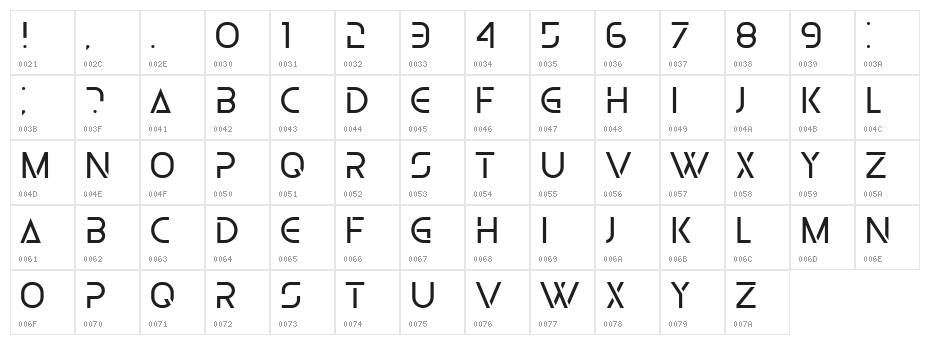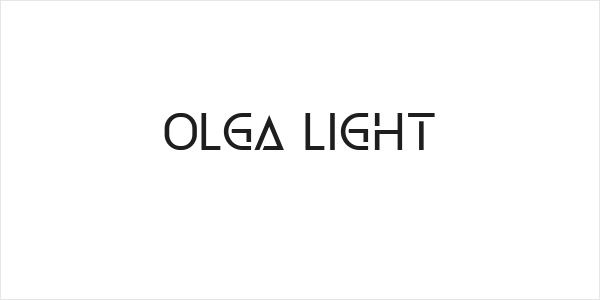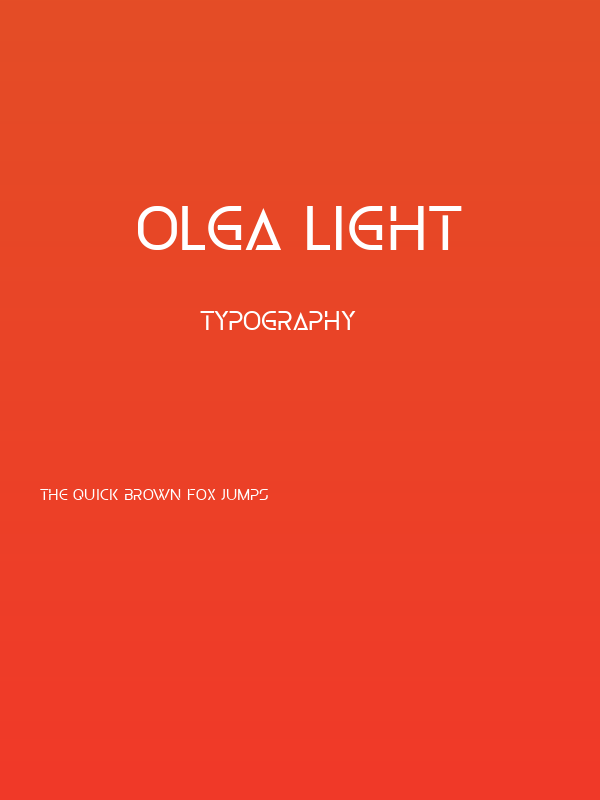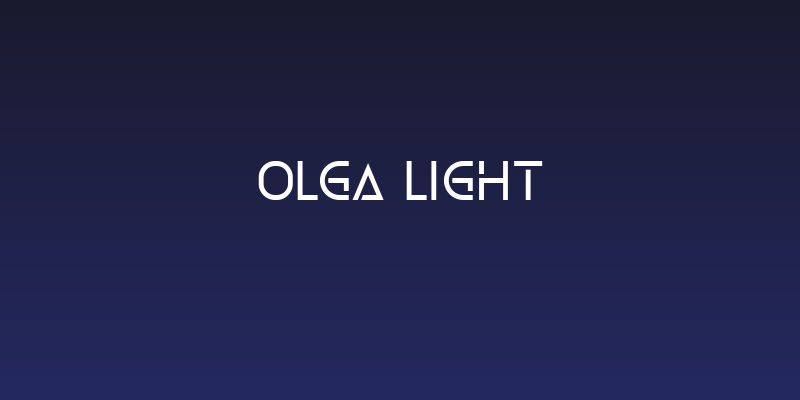
Olga Light Font
Olga Light Description
This font features a modern and geometric design with clean lines and a futuristic aesthetic. The characters are constructed with a consistent stroke width, giving it a uniform appearance. The uppercase letters are bold and striking, while the lowercase letters maintain the same geometric style, ensuring readability. The numbers are uniquely styled, with some characters incorporating angular cuts and curves that add a distinctive touch. The special characters are minimalistic, aligning with the overall sleek design. This font is ideal for projects that require a contemporary and innovative look.
| Use Case | Logos, Headlines, Digital interfaces |
| Proposed Projects | Ideal for technology branding, modern advertising, digital interfaces, and futuristic design projects. |